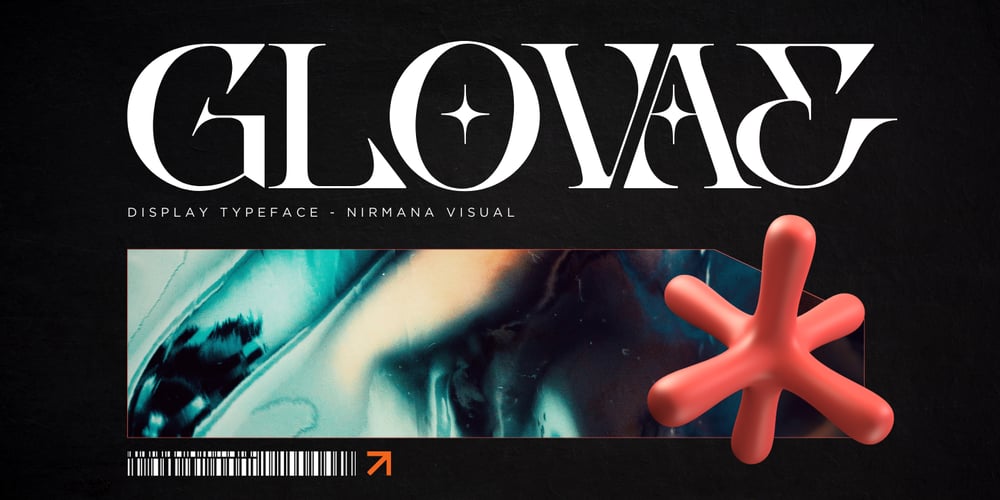
Glovae Modern
Glovae Modern font
Glovae Modern Font Family was designed by Sigit Dwipa and published by Nirmana Visual. Glovae Modern contains 1 styles and family package options. Introducing Glovae Modern our luxurious serif font, an epitome of elegance and sophistication. This font is masterfully designed to reflect the essence of high-end style, featuring meticulously crafted ligatures that enhance its refined character.Each letterform is a testament to timeless beauty